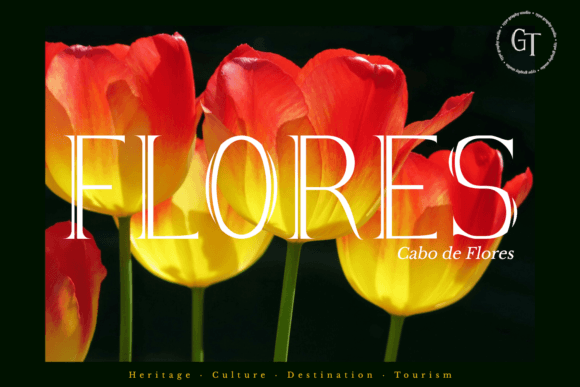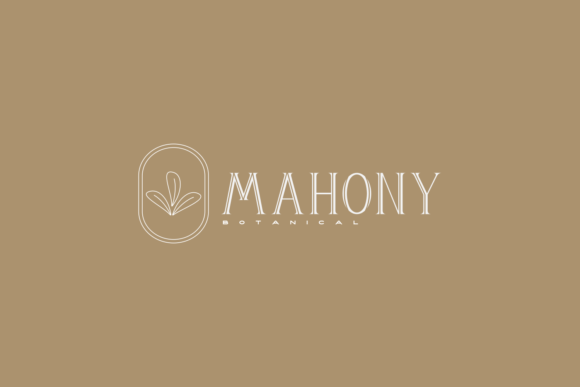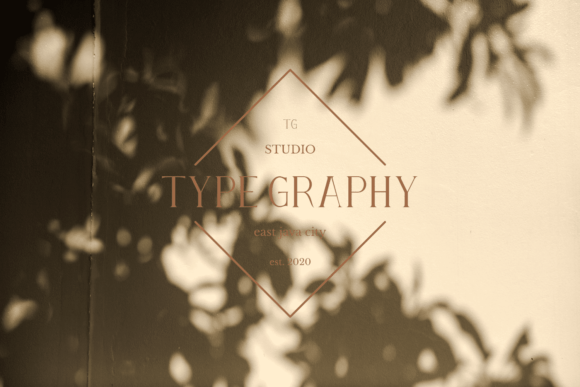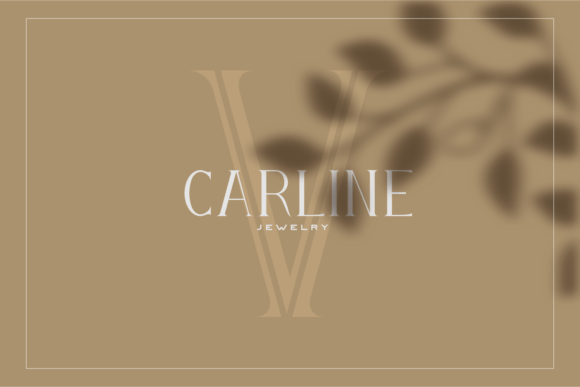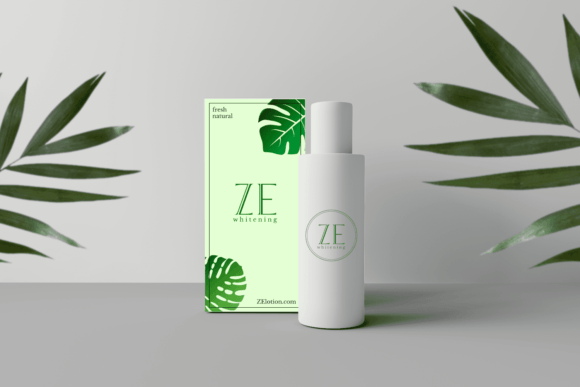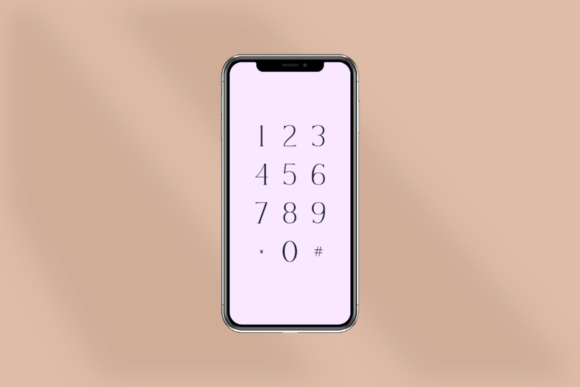
Introducing Equalist Font: Elevate Your Branding and Logo Design with Elegance
In the world of design, typography plays a crucial role in conveying the message and aesthetic of a brand. For designers and crafters seeking to add a touch of luxury and sophistication to their projects, the Equalist Font is an exceptional choice. This elegant serif font is designed to bring a sense of refinement and style to branding and logo design projects, making it an ideal selection for those who aim to create a lasting impression.
What is Equalist Font?
Equalist Font is a meticulously crafted serif font that exudes elegance and poise. Its design is characterized by precise lines, balanced proportions, and a sophisticated flair that sets it apart from more conventional fonts. The Equalist Font is not just a typeface; it’s a design statement that communicates luxury, professionalism, and attention to detail.
Key Features of Equalist Font
- Elegant Serif Design: The font features classic serifs that add a touch of sophistication and elegance to any design project.
- Versatility: Equalist Font is highly versatile, making it suitable for a wide range of applications, from logo design and branding to packaging and editorial content.
- High Readability: Despite its elegant appearance, the font maintains high readability, ensuring that your message is conveyed clearly and effectively.
- Unique Character: Each letter in the Equalist Font has been carefully designed to contribute to the overall aesthetic of the font, ensuring that your designs stand out.
The Equalist Font offers numerous benefits for designers and crafters looking to elevate their projects:
- Time-Saving: With its comprehensive set of characters and styles, the Equalist Font allows designers to work more efficiently, saving time that can be allocated to other creative aspects of a project.
- Consistency: For branding projects, consistency is key. The Equalist Font helps maintain a uniform visual identity across different platforms and materials.
- Inspiration: The font’s unique design can serve as a source of inspiration, encouraging designers to experiment with new and innovative design concepts.
The Equalist Font is a powerful tool for designers and crafters aiming to infuse their branding and logo design projects with a sense of luxury and style. Its elegant serif design, versatility, and high readability make it an excellent choice for those seeking to make a lasting impression. By incorporating the Equalist Font into your projects, you not only elevate the aesthetic quality of your designs but also communicate a commitment to detail and sophistication.
Whether you’re working on a high-end brand identity, a personal logo, or any project that demands a touch of elegance, the Equalist Font is sure to exceed your expectations. Explore its capabilities, and discover how this elegant serif font can transform your design endeavors.